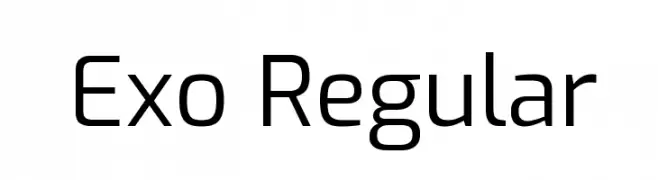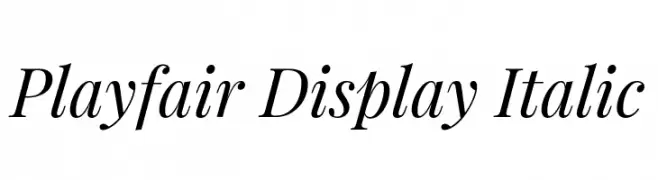
A bold, high-contrast serif typeface with elegant and dramatic strokes.
An elegant, italicized serif font with high contrast and small caps.
A high-contrast, elegant serif font with a classic yet modern appeal.
A high-contrast serif font with a classic yet modern elegance.
A bold, modern sans-serif font with clean lines and uniform strokes.
A bold, italicized font with a modern and dynamic style.
A modern, italic sans-serif font with clean lines and balanced proportions.
A sleek, narrow italic typeface with a modern and professional appearance.
A modern, narrow, bold italic font with tight spacing and minimal contrast.
A modern, narrow sans-serif font with clean lines and uniform stroke width.
A bold, narrow sans-serif typeface with a modern and clean design.
A modern, italicized geometric font with bold, angular characters.
A modern, geometric sans-serif font with a clean and balanced design.
A modern, bold sans-serif font with geometric shapes and uniform stroke width.
A clean, modern sans-serif font with a geometric and minimalist design.
A futuristic, geometric font with sharp angles and a cohesive block-like structure.
A futuristic, angular font with a sleek, italicized design.
A modern, geometric sans-serif font with balanced proportions and clear legibility.
A modern, geometric sans-serif font with a clean and professional appearance.
A bold, hand-drawn comic-style font with a playful and informal vibe.